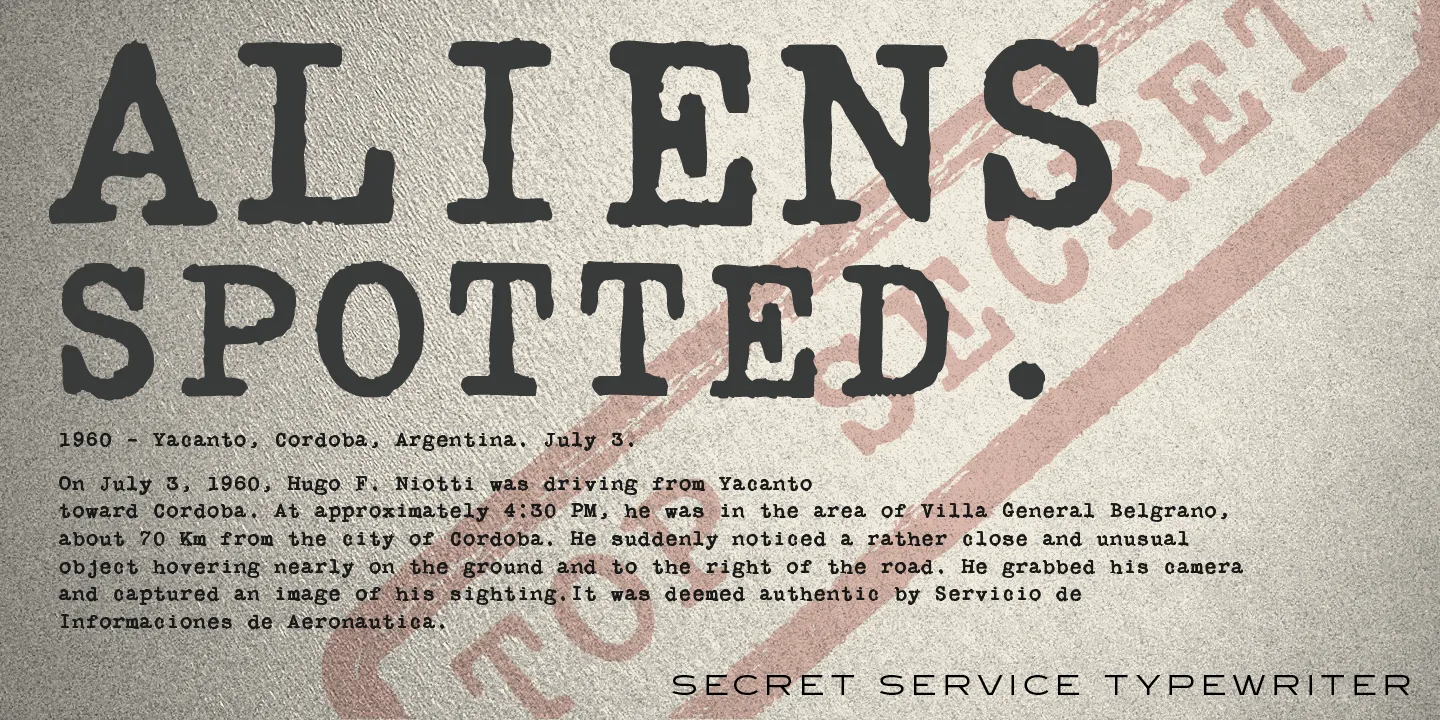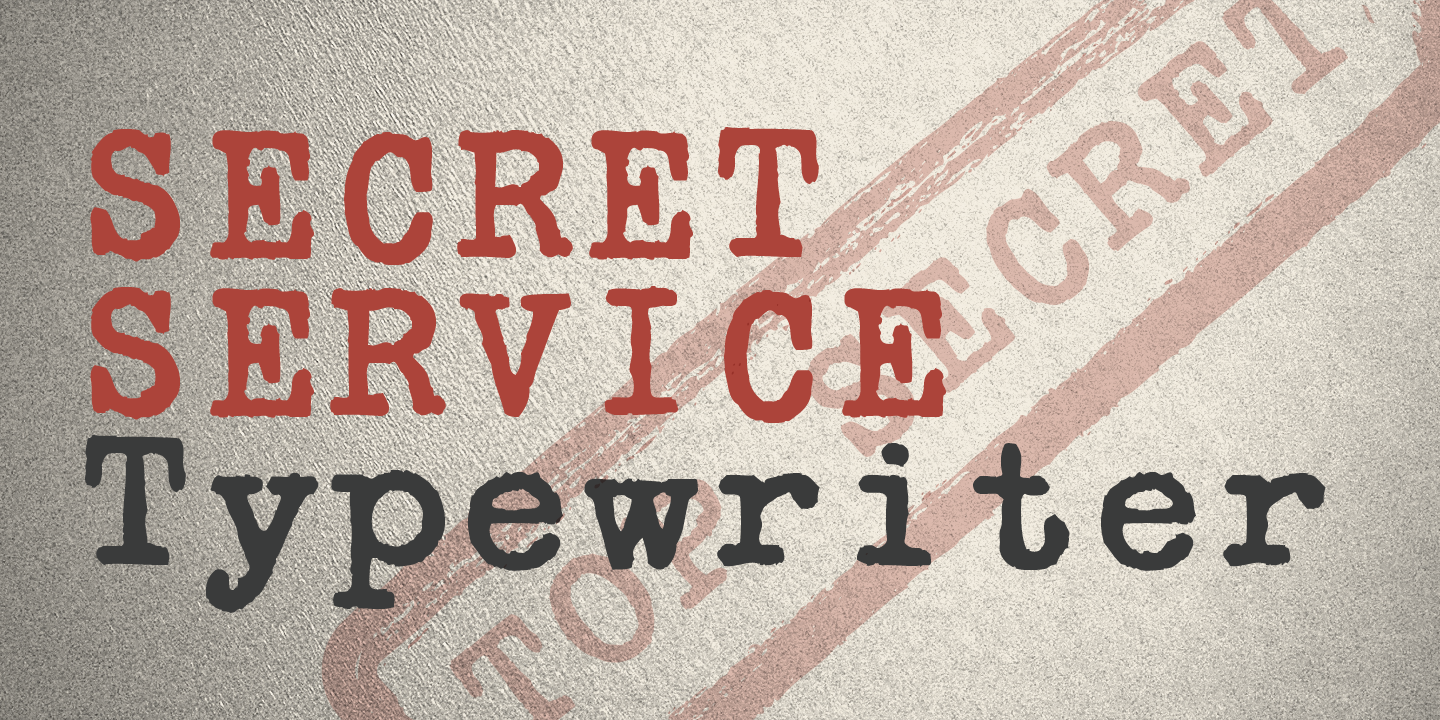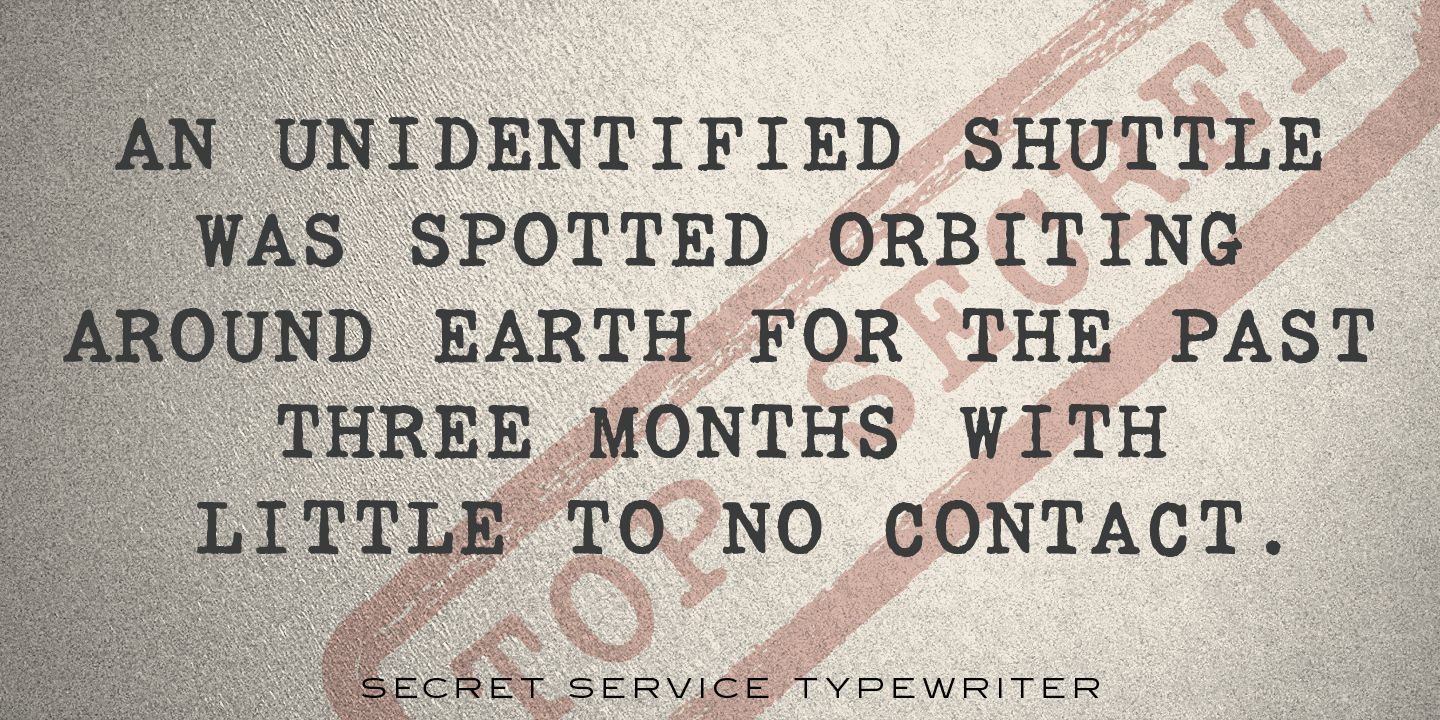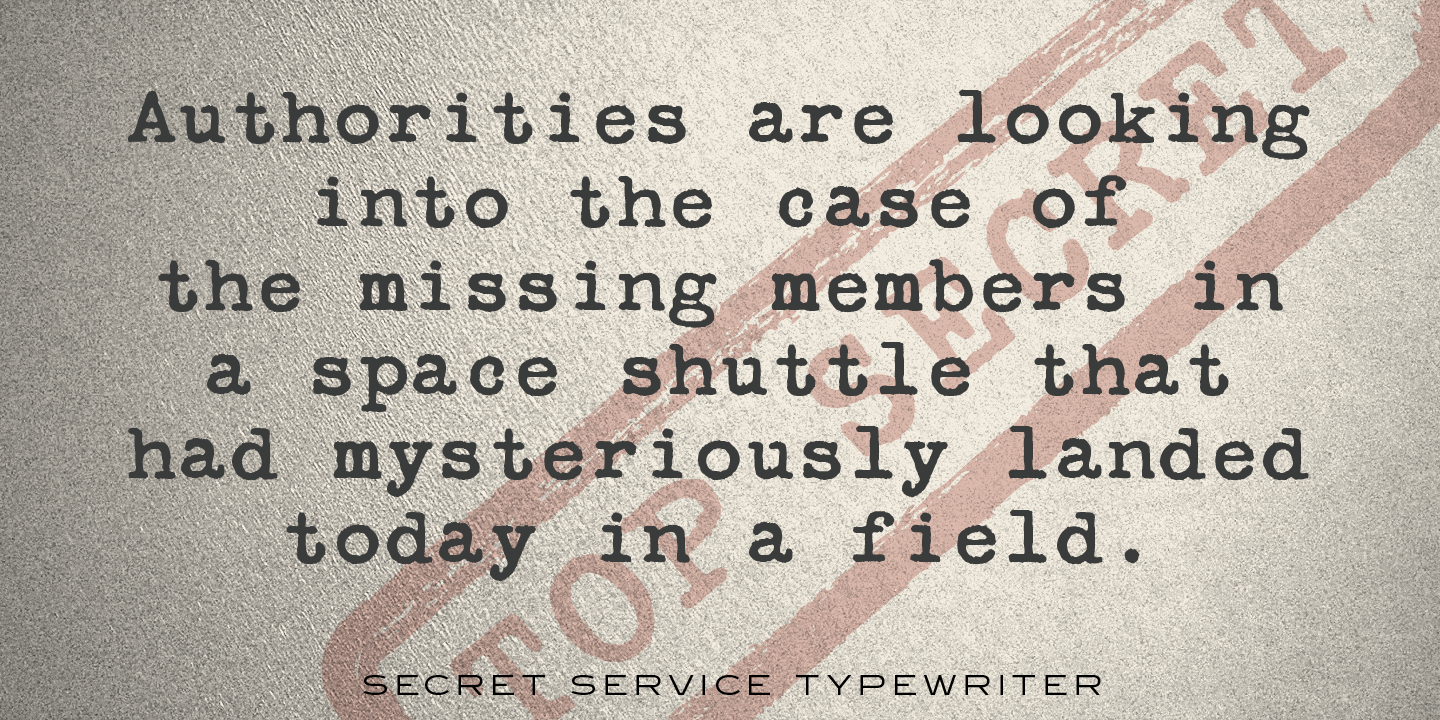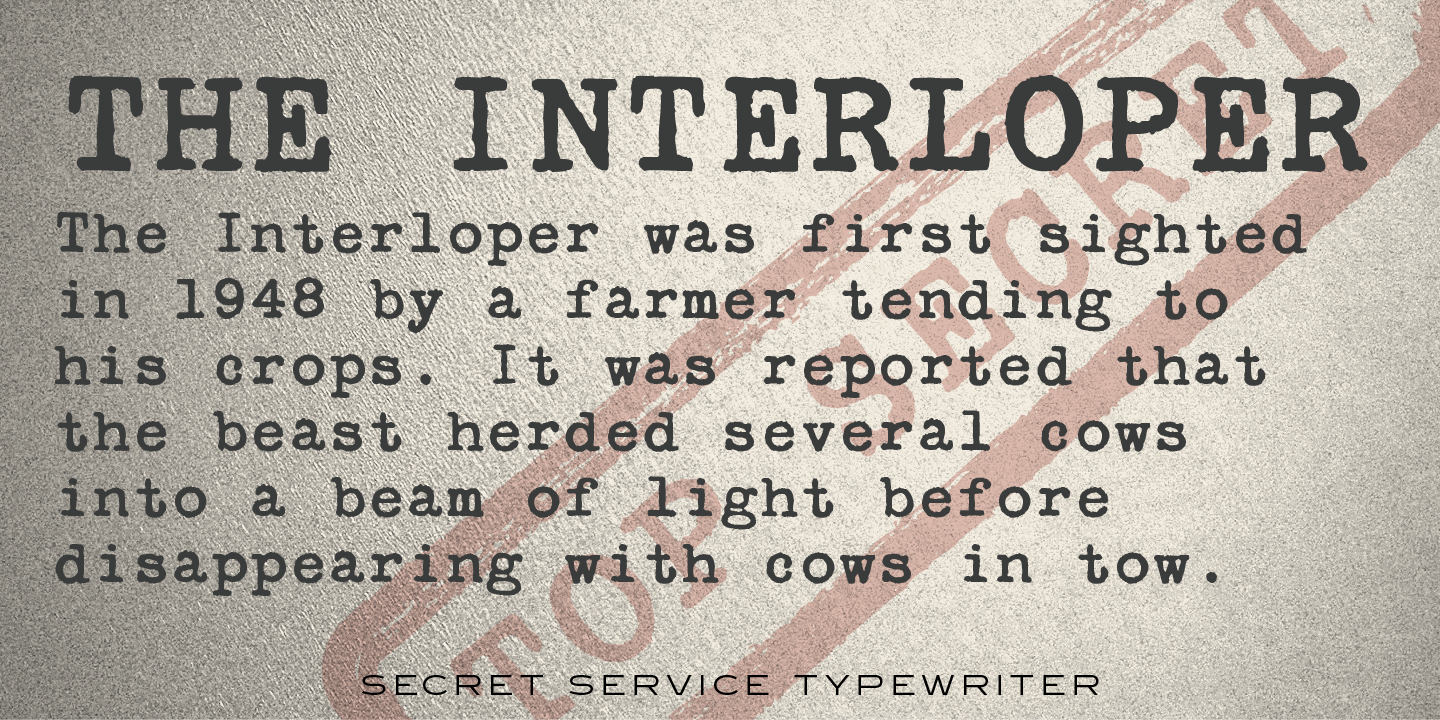
Secret Service Typewriter Font
Secret Service Typewriter draws its inspiration from an early Remington typewriter font, originally created by the Keystone Type Foundry around 1905. Its monospaced characters and slightly rough texture capture the charm of vintage mechanical typewriters, complete with their telltale imperfections. This typeface is perfect for adding a retro or historical touch to your designs — whether working on a themed periodical, crafting a poster, retro brand identity, or spy-themed museum exhibits.